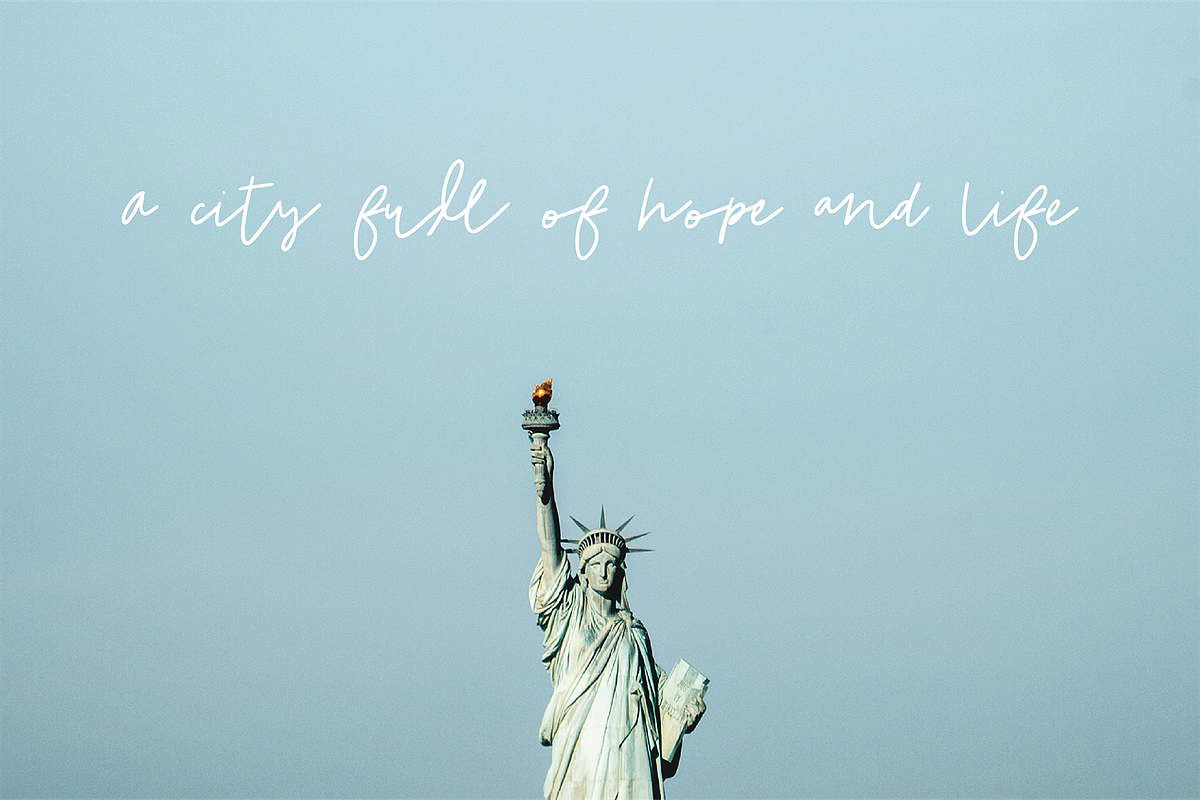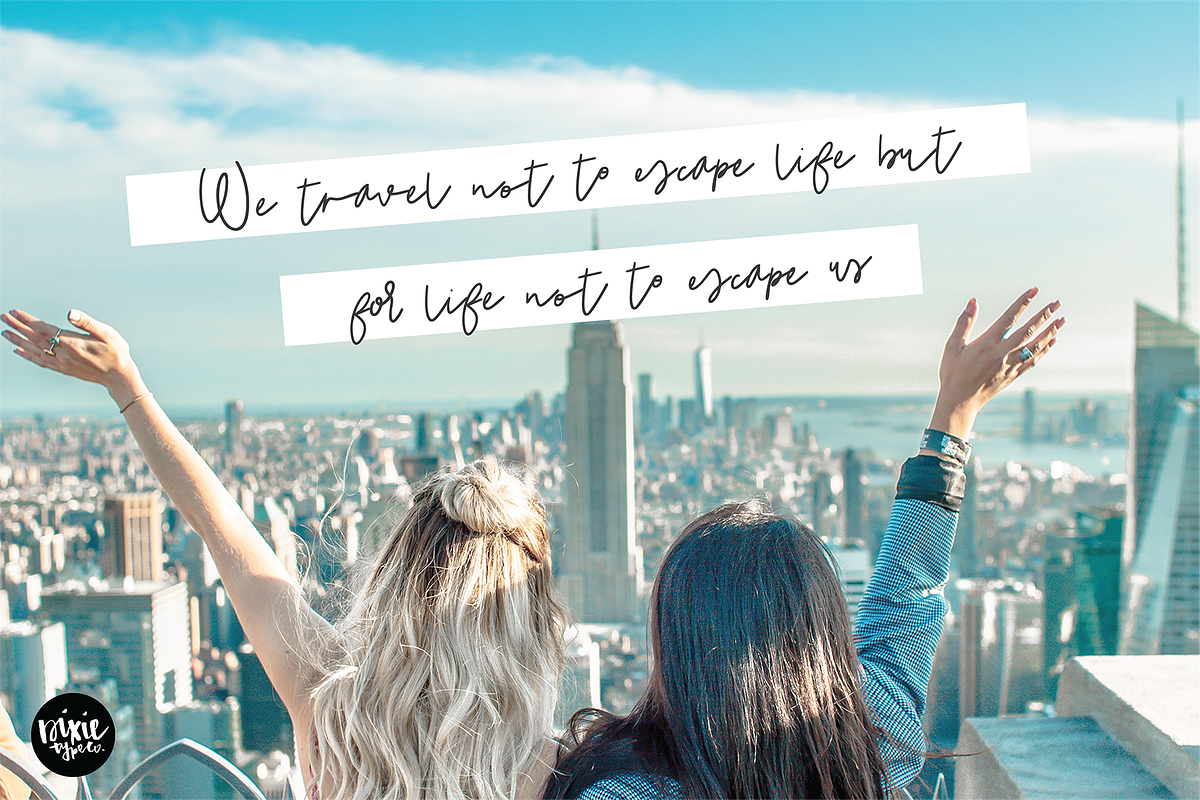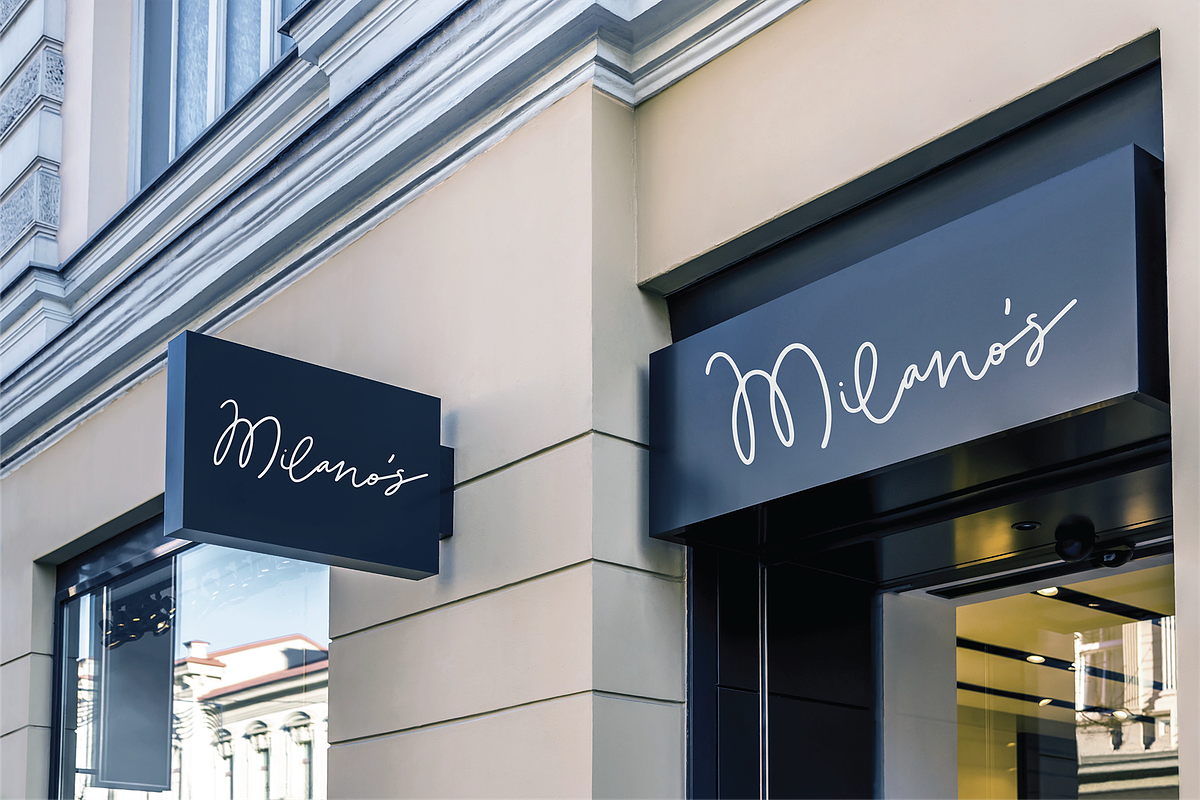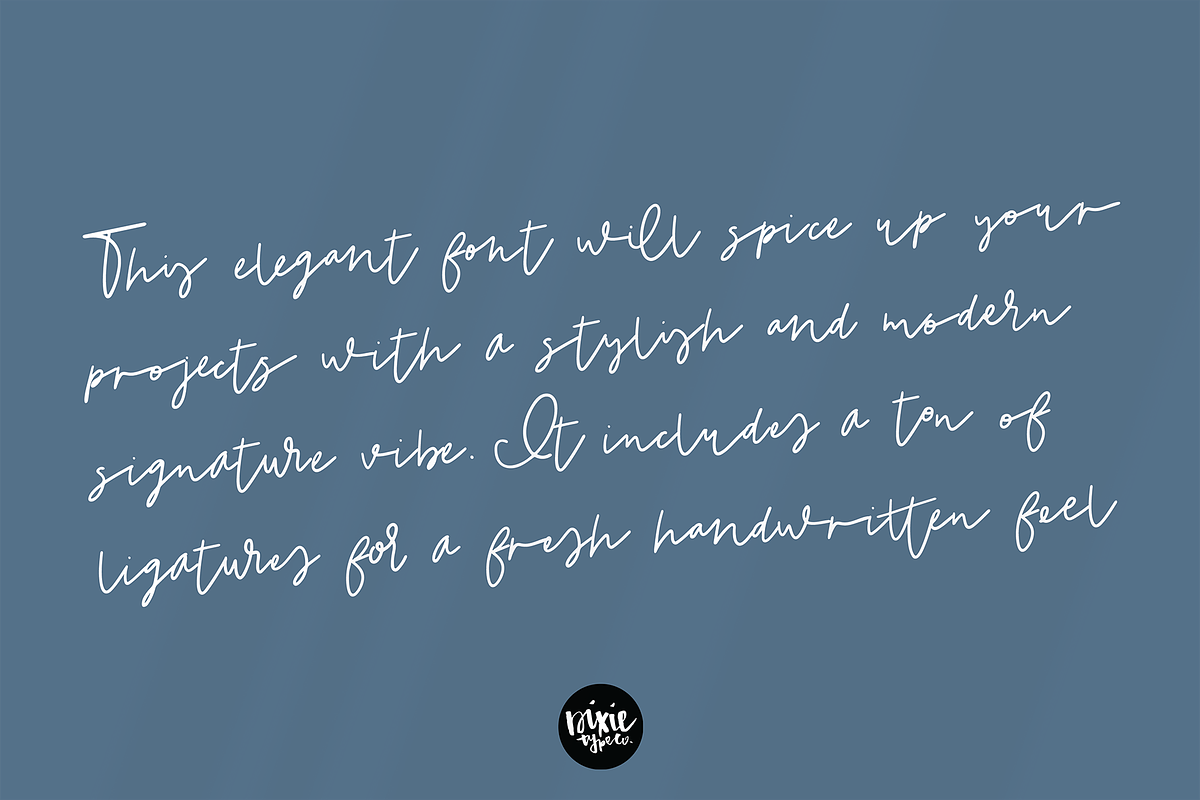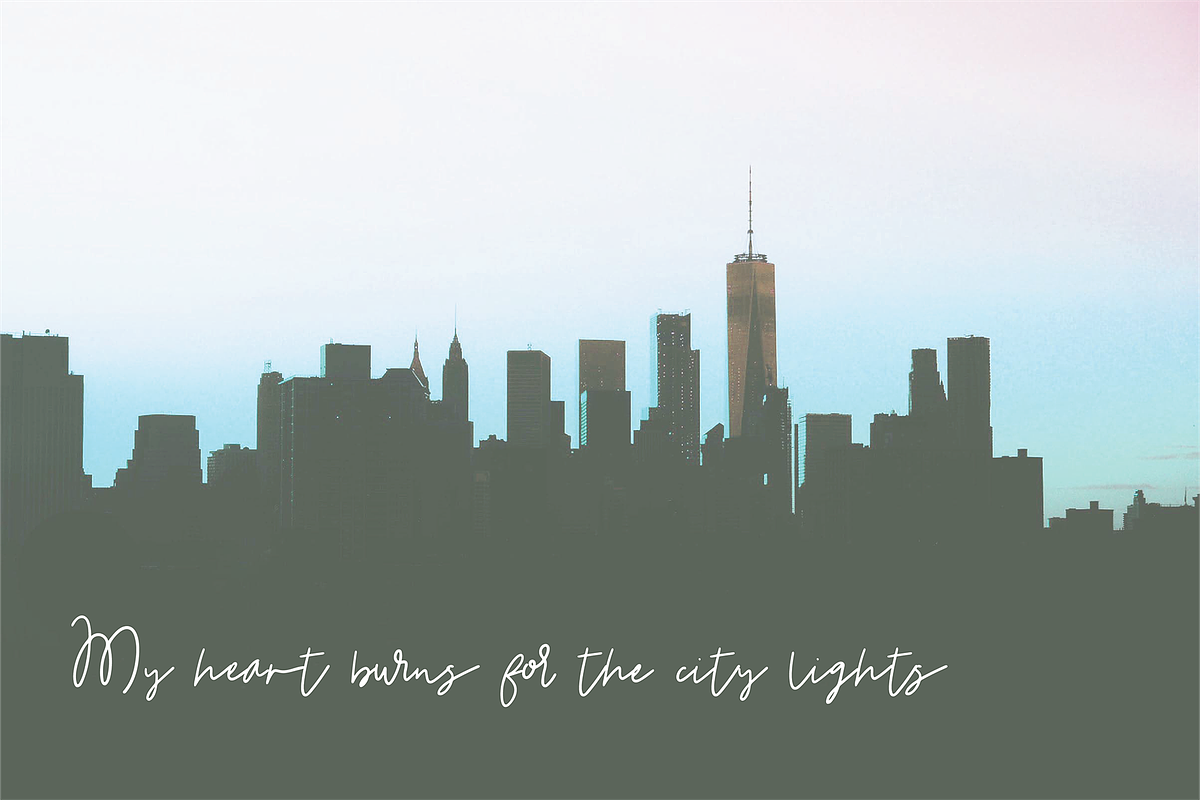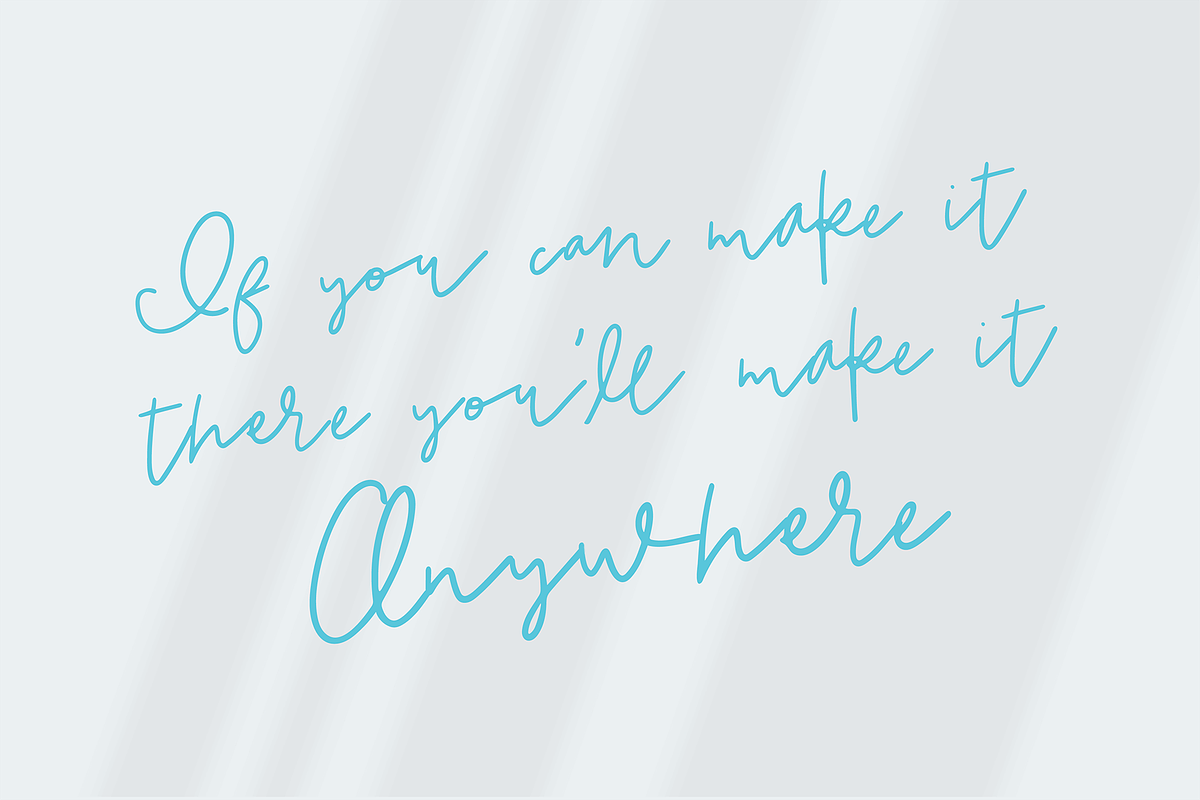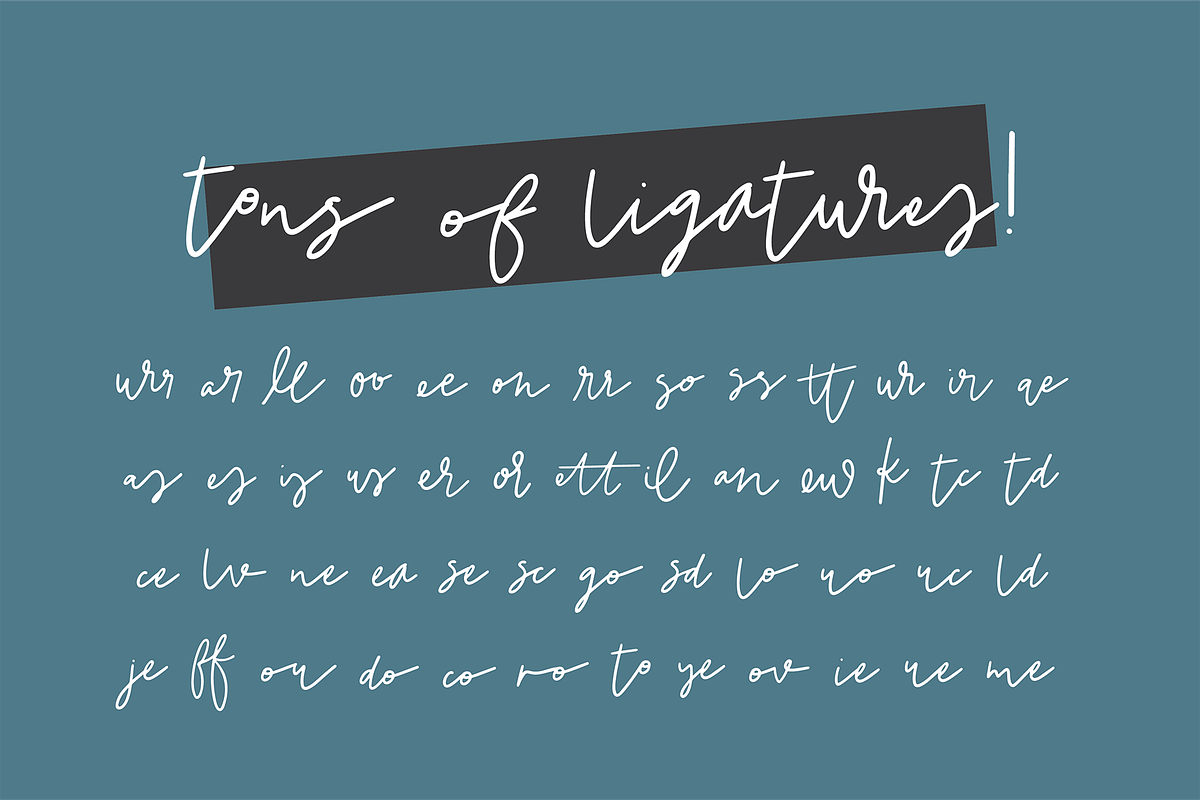
NEW YORK a Signature Script Font
{ A typographic font hand lettered with love by Dixie Type Co. }
New York is a hand-lettered signature script font. This font comes with tons of ligatures.
- This font comes with tons of ligatures.
- Font includes: Upper and lowercase glyphs, numbers, and basic punctuation.